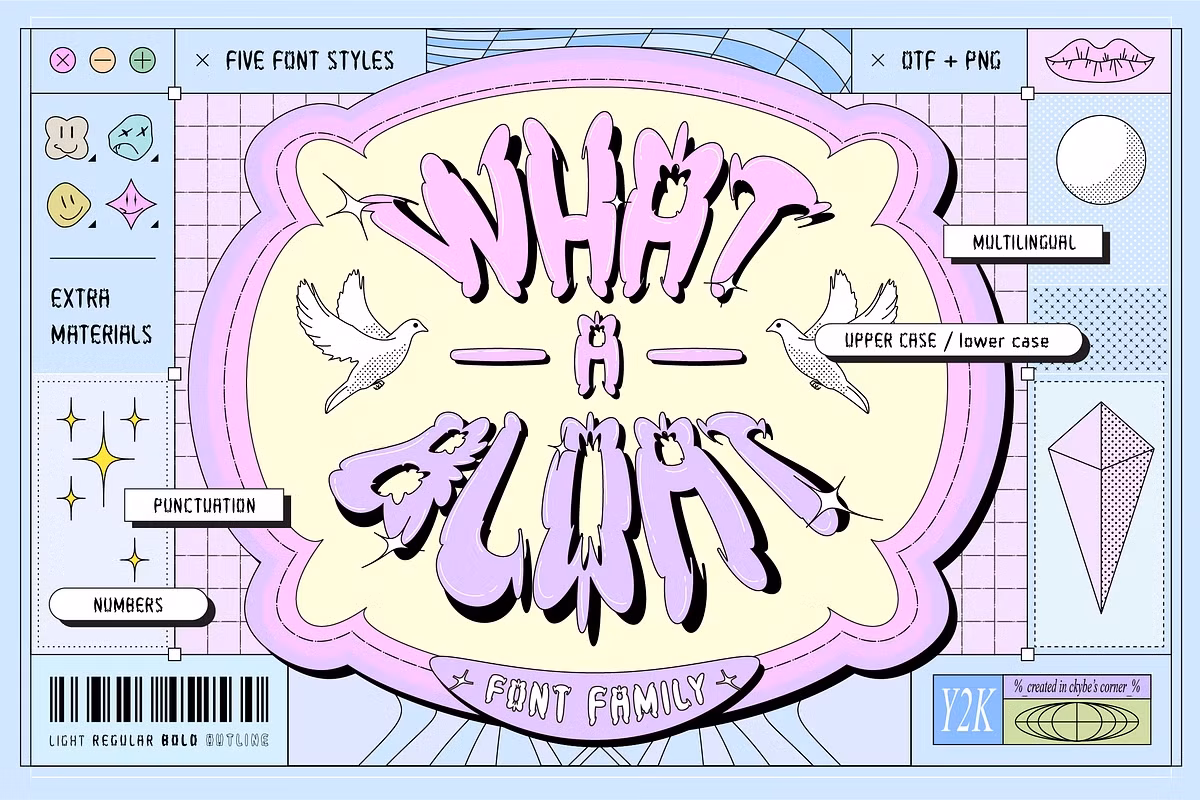
What-a-bloat | Font Family Free Download is a playful and quirky font family designed with a fun and bubbly aesthetic. Featuring a range of weights and styles, this font family is perfect for creating eye-catching headlines, logos, posters, packaging, and any project that needs a friendly, vibrant feel. The rounded, exaggerated letterforms make it ideal for children’s content, social media graphics, and fun branding.
Using the What-a-bloat | Font Family Free Download adds a light-hearted, creative touch to your designs. Whether you’re working on a playful brand identity, designing vibrant social media posts, or crafting fun promotional materials, this font family brings energy and personality to your typography.